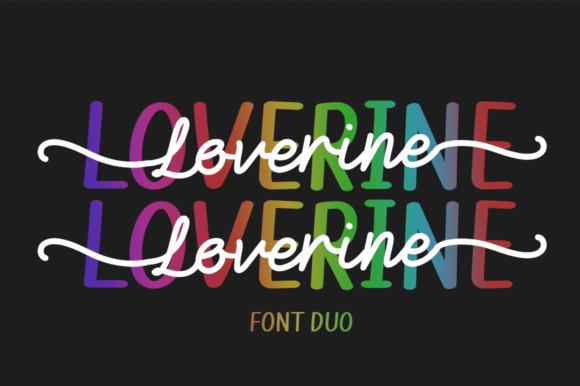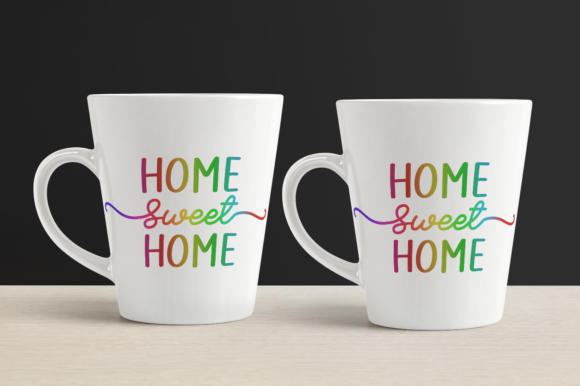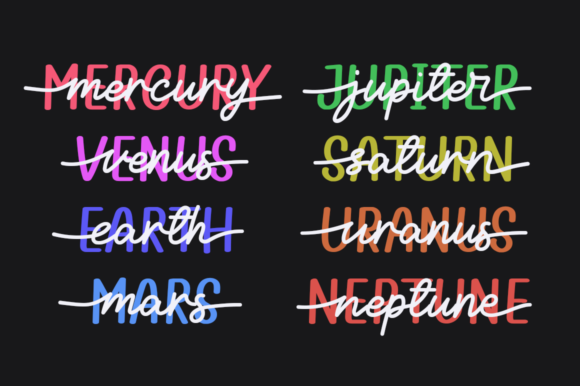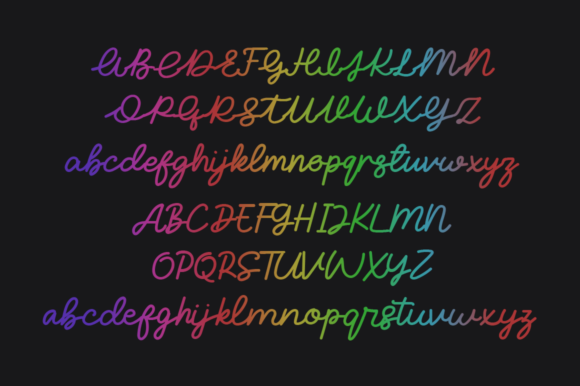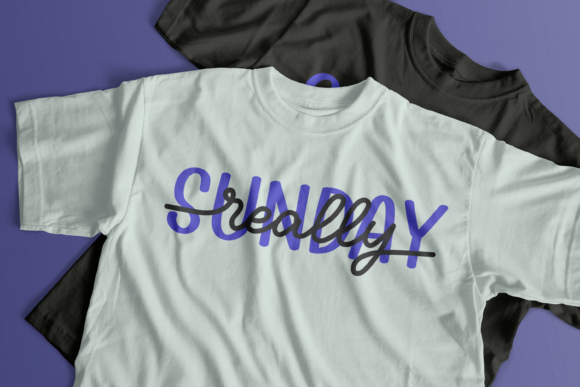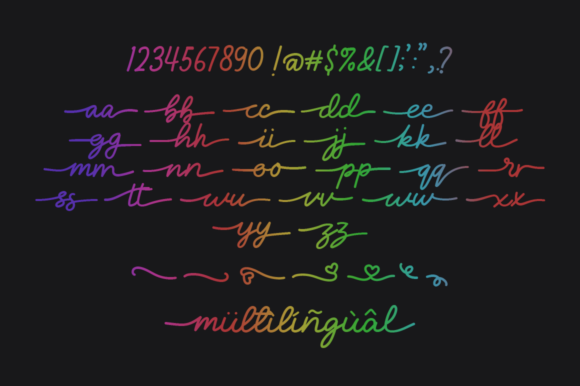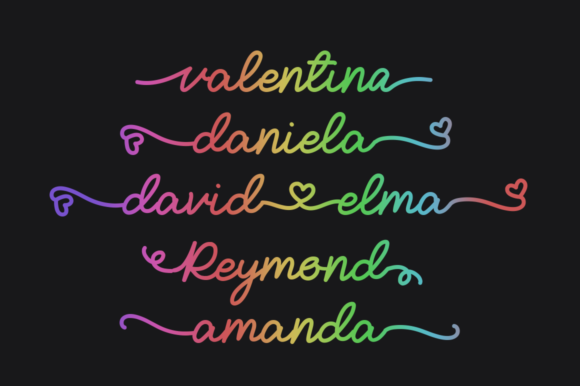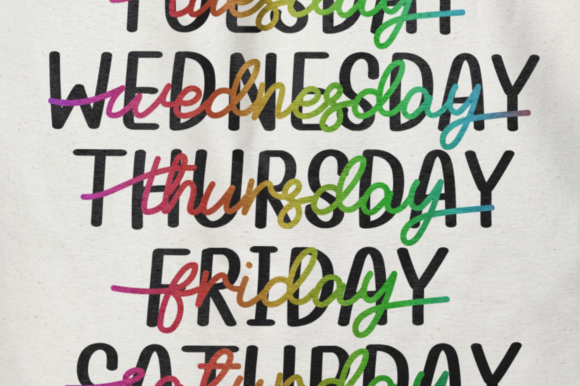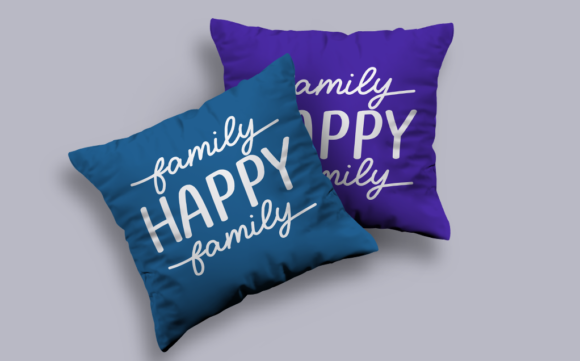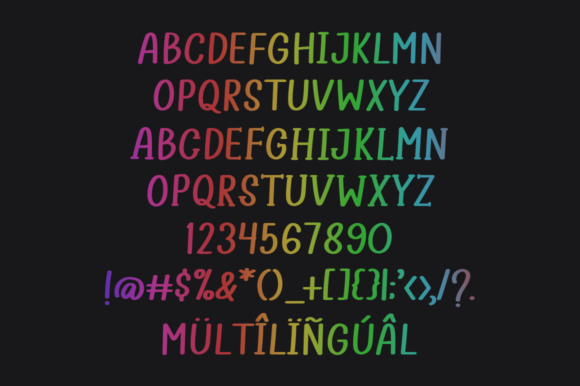
Loverine Font
About Loverine Font
“Loverine” sounds like a stunning duo font that offers both a display font and a script font. Here are some key features that make it stand out:
Spectacular Duo Font: “Loverine” comes with two distinct styles—a display font and a script font. This duo font combination offers designers greater flexibility and creativity in their design projects.
Versatility: The font’s versatility means it can be used across a wide range of design applications. From elegant and formal designs to more playful and creative projects, “Loverine” can adapt and enhance various design concepts.
Elevated Designs: With its unique and eye-catching styles, “Loverine” has the ability to elevate designs to new heights, making them stand out and capture attention.
Wide Pool of Designs: The font’s adaptability allows it to complement a diverse array of design projects, including logos, branding materials, packaging, posters, social media graphics, and more.
Display Font: The display font is likely to have a bold and impactful appearance, making it ideal for headlines, titles, and other prominent text elements.
Script Font: The script font is expected to have a flowing and handwritten-like style, perfect for adding a touch of elegance and personalization to designs.
Creative Ideas: Designers can unleash their creativity by incorporating “Loverine” into their favorite projects, exploring various typographic compositions and combinations.
Dynamic Combinations: The ability to pair the display font and script font together allows for dynamic and visually appealing typography, giving designers more opportunities for experimentation.
Professional and Playful: “Loverine” strikes a balance between professionalism and playfulness, making it suitable for a wide range of industries and design styles.
Readable and Expressive: Despite its distinctive styles, “Loverine” ensures readability and expressiveness, ensuring that the message or content is conveyed effectively.
Branding and Logos: The duo font is particularly well-suited for creating memorable logos and branding elements that leave a lasting impression on audiences.
Packaging Design: “Loverine” can be a great choice for packaging design, where the combination of the display font and script font can add an attractive and stylish touch.
Social Media Graphics: With its versatility, the font can be utilized to create engaging social media graphics that catch the eyes of followers and enhance brand visibility.
Promotional Materials: Whether for posters, flyers, or brochures, “Loverine” can enhance promotional materials and make them more visually appealing.
Overall, “Loverine” appears to be a font duo that offers a perfect blend of styles—bold and expressive for display purposes, and elegant and flowing for scripts. Its versatility and ability to elevate designs make it a valuable asset for designers seeking to create captivating and dynamic typographic compositions. By incorporating “Loverine” into their creative ideas, designers can bring their projects to life and achieve impressive and professional results.